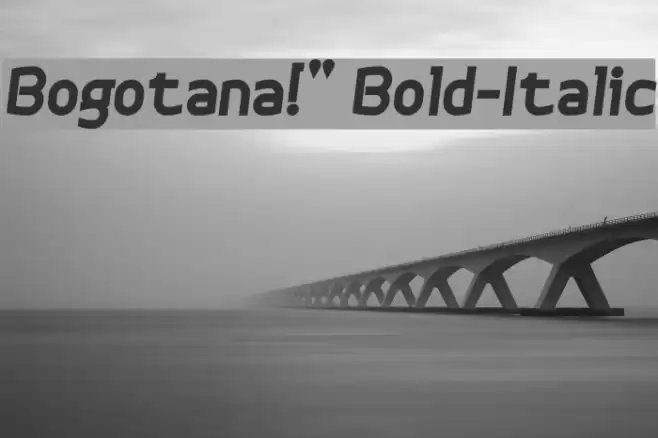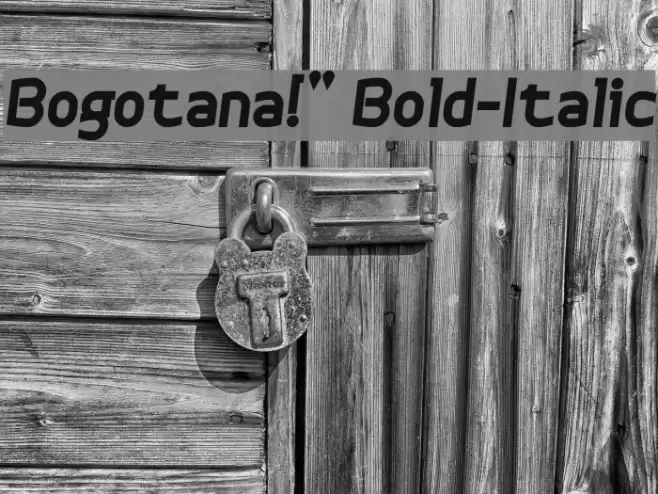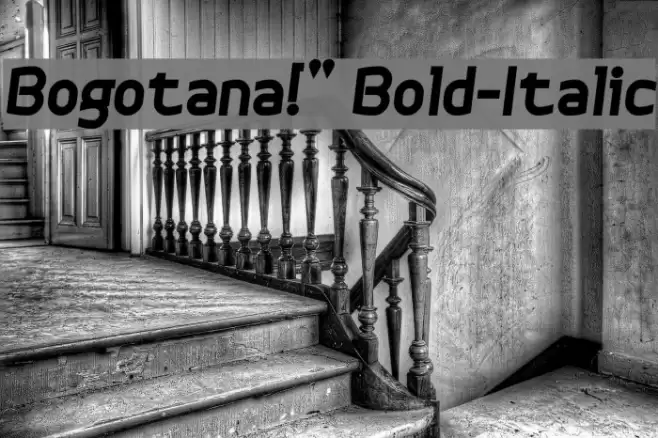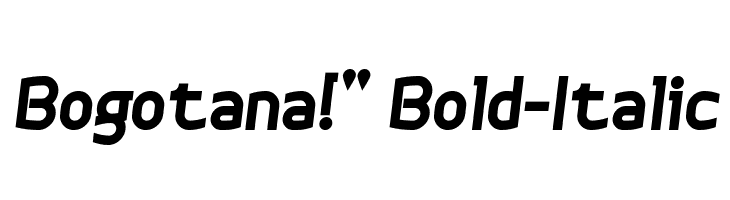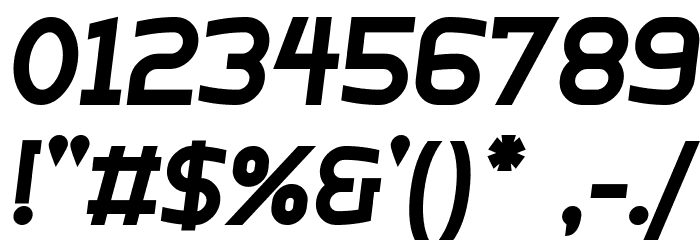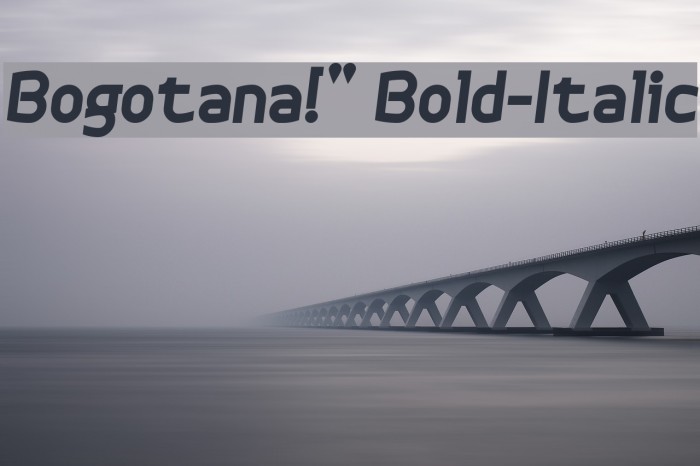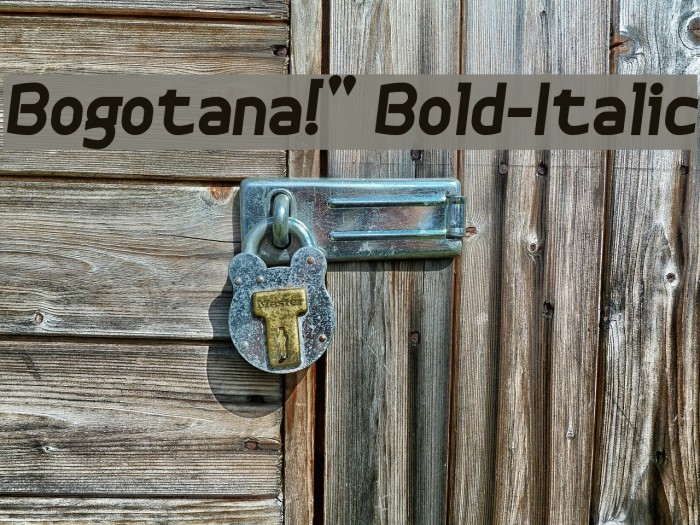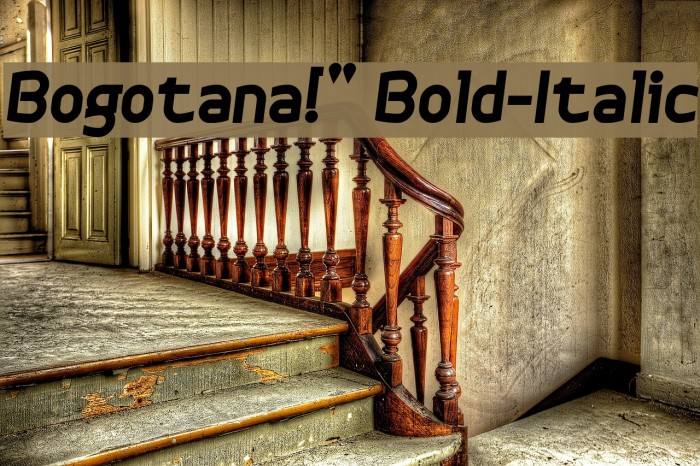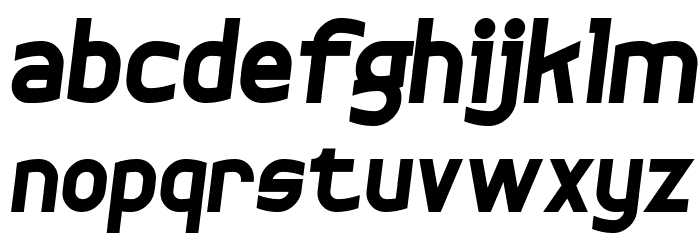
Bogotana!" Bold-Italic Font
Bogotana!" Bold-Italic Description
This font presents a bold and italicized style, characterized by its dynamic and forward-leaning posture. The letters are robust and convey a sense of strength and movement. The uppercase and lowercase characters maintain a consistent slant, enhancing the italic effect. The numerals are clear and bold, matching the overall aesthetic. Special characters are well-integrated, maintaining the font's cohesive look. The strokes are thick, providing a strong visual impact, while the spacing between characters is balanced, ensuring readability.
A bold, italicized font with a dynamic and strong appearance from Uncategorized fonts.
- Proposed Projects: Ideal for branding, advertising, and editorial design where a bold statement is needed.
- Use Case: Headlines, Logos, Branding